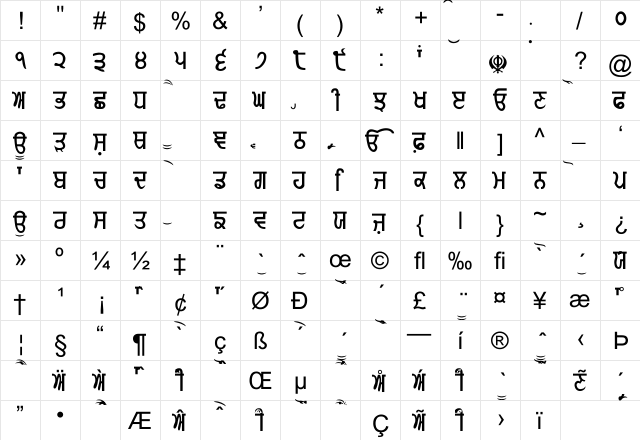
Gurmukhi-Normal Regular
Design Context for Gurmukhi-Normal Typeface
Gurmukhi-Normal offers clean, dependable letterforms without strong stylistic allegiance, making it a practical choice for designers who need flexibility.